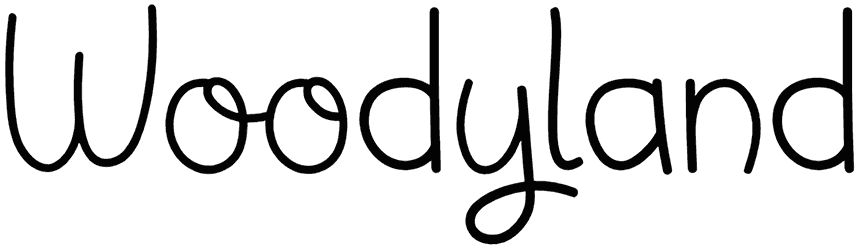
Woodyland Font
Woodyland is a powerful and friendly handwritten font with rounded, childlike edges. If you’ve been looking for an exciting variant to spice up your projects, this is right.
This script font is so unique that it can appear well in digital and printed designs and look attractive on t-shirts, brochures, and social media layouts. So if you’re looking for beauty and simplicity, make Woodyland a star in your collection for designs without numbers.